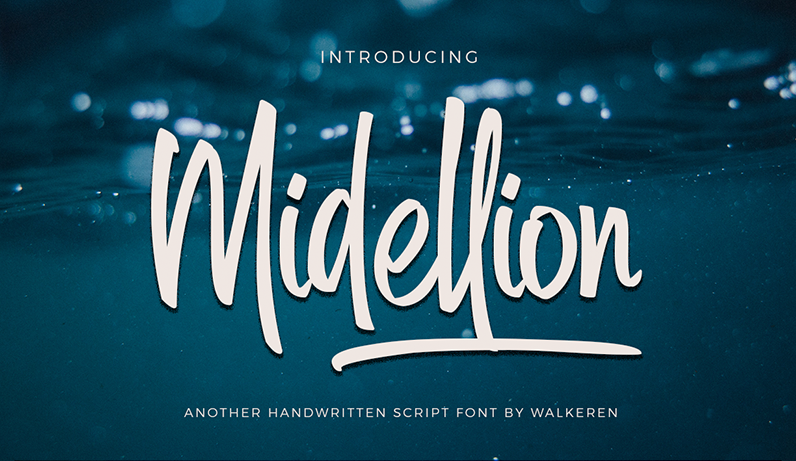
Font name: | Midellion |
Author: | Walkeren |
Hi dude, let�s we introduce for you: Midellion. A narrow-handwritten script with modern style and built in Opentype features. This font comes with multilanguage support and various of swashes are also included in the Private Use Area, make you can access them easily even your software not support OpenType. Midellion will perfect for many different project ex: header for blog or magazine, poster, wedding, branding, packaging, logo, fashion, apparel, letter, invitation, stationery, quotes, photography, watermark, etc. And also perfect for signature handwriting style The font has smooth texture, so would be perfect for all types of printing techniques you can do embroidery, laser cut, gold foil etc. This is Demo version of Midellion Handwritten Script, for commercial usage please visit me on Behance https://www.behance.net/walkeren We hope you enjoy with this modern handwritten font, if any question or problem, don't hesitate to contact me : walkerentype@gmail.com |